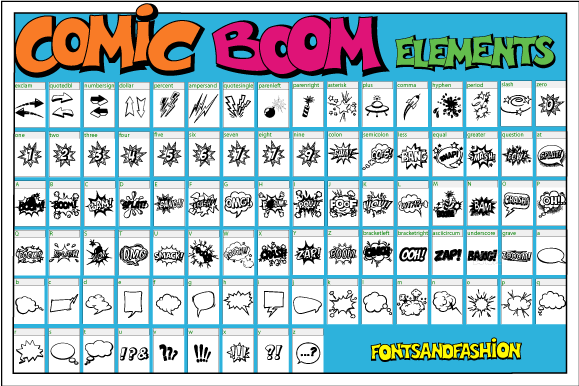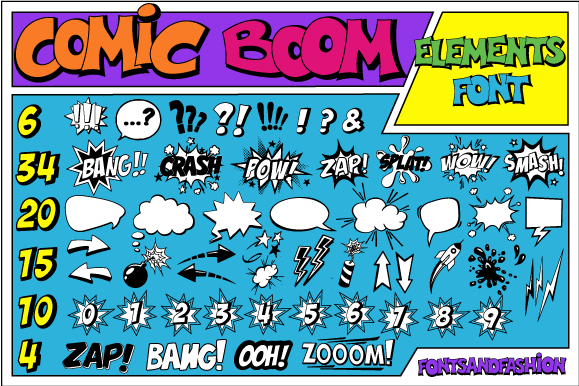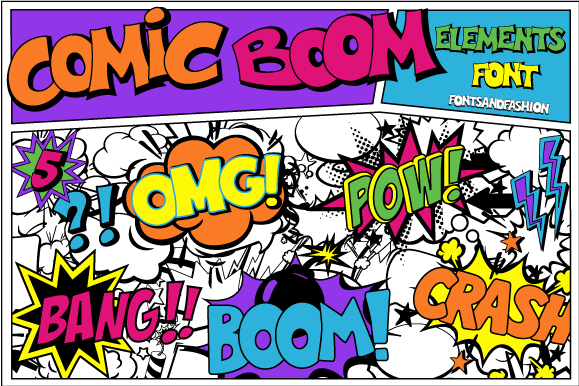
Unleash Your Creativity with Comic Boom Element Font
Are you a designer, crafter, or DIY enthusiast looking for a unique and exciting way to add a pop of personality to your projects? Look no further than the Comic Boom Element Font, a versatile and fun collection of 89 comic and funny superheroes subjects inspired by comic books and pop art.
What is Comic Boom Element Font?
Comic Boom Element Font is a specially designed font that brings the excitement and energy of comic books and pop art to your designs. This collection is perfect for anyone who wants to add a touch of superhero flair to their projects, whether it’s a DIY craft, a graphic design project, or a digital artwork.
Key Features of Comic Boom Element Font
- 89 Unique Subjects: The Comic Boom Element Font collection includes 89 different comic and funny superheroes subjects, giving you a wide range of options to choose from.
- Versatile and Flexible: These elements can be used in a variety of projects, from digital art to craft projects, and can be scaled up or down without losing quality.
- Easy to Use: The font is designed to be easy to use, even for those who are new to design or crafting.
- High-Quality Images: Each element is a high-quality image, perfect for printing or digital use.
Uses for Comic Boom Element Font
The possibilities are endless when it comes to using Comic Boom Element Font. Here are a few ideas to get you started:
- DIY Crafts: Add a superhero touch to your DIY crafts, such as scrapbooking, card making, or paper crafting.
- Graphic Design: Use the elements to create unique and eye-catching graphics for social media, blogs, or websites.
- Digital Art: Incorporate the comic and funny superheroes subjects into your digital art, such as illustrations or paintings.
- Paper Crafting: Use the elements to create custom paper crafts, such as gift tags, banners, or decorations.
Benefits of Using Comic Boom Element Font
Using Comic Boom Element Font can bring a range of benefits to your designs and DIY projects. Here are a few:
- Adds Personality: The comic and funny superheroes subjects can add a touch of personality and whimsy to your projects.
- Increases Visual Interest: The bold and colorful elements can help to increase visual interest and make your projects stand out.
- Easy to Customize: The elements can be easily customized to fit your needs, such as resizing or recoloring.
- Saves Time: The pre-made elements can save you time and effort, as you don’t have to create the designs from scratch.
Tips and Tricks for Using Comic Boom Element Font
Here are a few tips and tricks to help you get the most out of Comic Boom Element Font:
- Experiment with Different Colors: Try out different colors and color combinations to add depth and interest to your designs.
- Mix and Match Elements: Combine different elements to create unique and complex designs.
- Use with Other Fonts: Pair Comic Boom Element Font with other fonts to create interesting and dynamic text effects.
- Get Creative with Placement: Don’t be afraid to experiment with different placement and arrangement of the elements.
Comic Boom Element Font is a versatile and fun collection of comic and funny superheroes subjects that can add a touch of personality and excitement to your designs and DIY projects. With its ease of use, high-quality images, and range of uses, it’s perfect for designers, crafters, and DIY enthusiasts of all levels. So why not give it a try and see what amazing creations you can come up with?